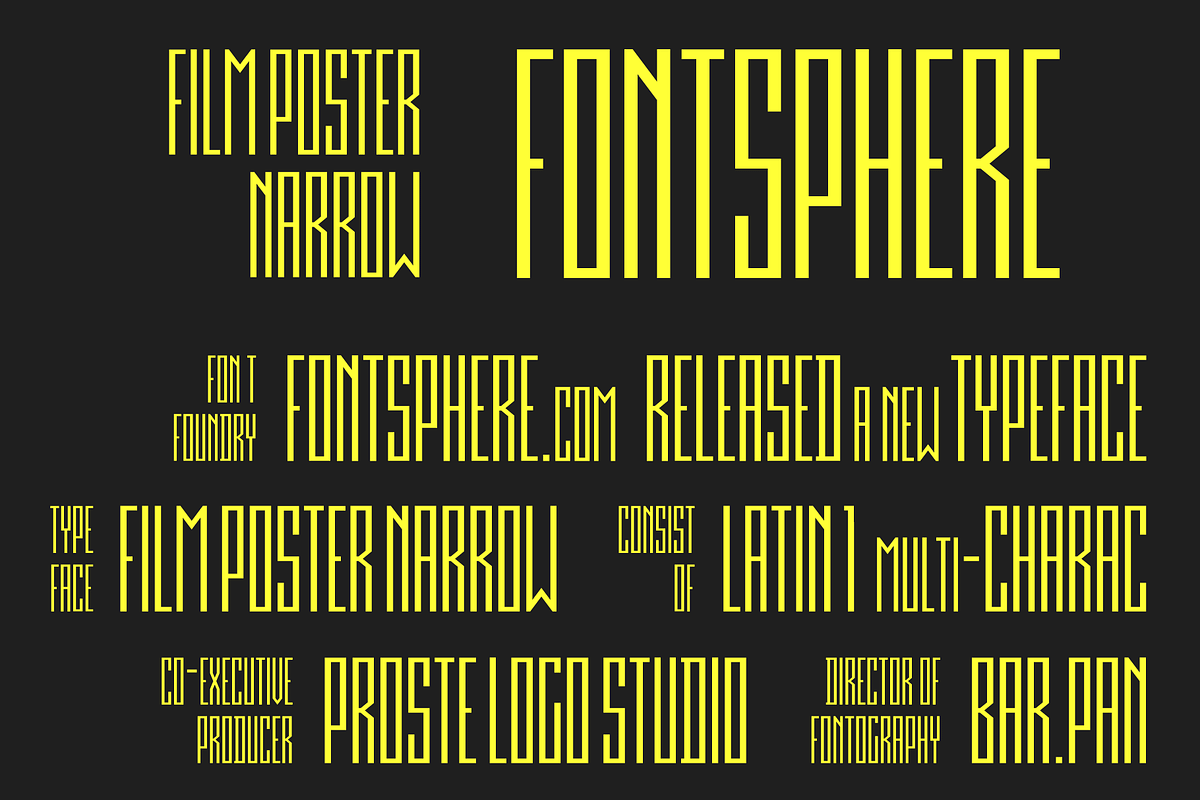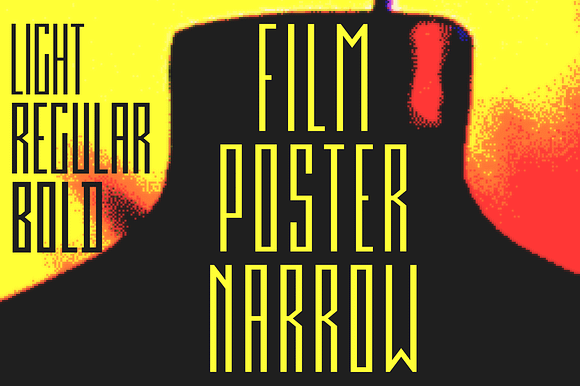
Film Poster Narrow |3 fonts
Film Poster Narrow Typeface
Film Poster Narrow Light
Film Poster Narrow Regular
Film Poster Narrow Bold
Film Poster Narrow is an ultra condensed sans serif display typeface with geometric forms. It can be used in many creative ways, all kinds of graphics, posters, advertising materials, text composition. It fits perfectly for the film industry as well as many other fields.
- The font includes multilingual support (Latin-1), uppercase and lowercase letters, numerals and a large range of punctuation.